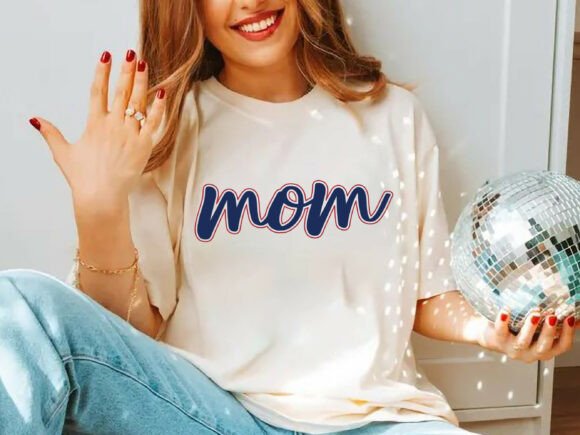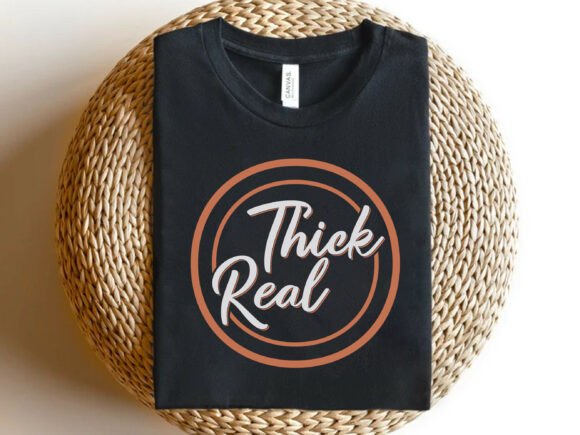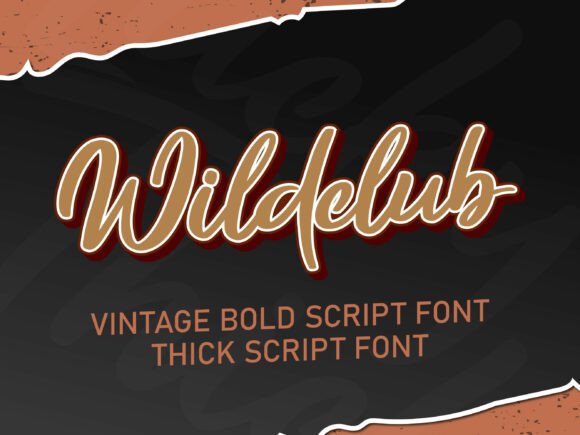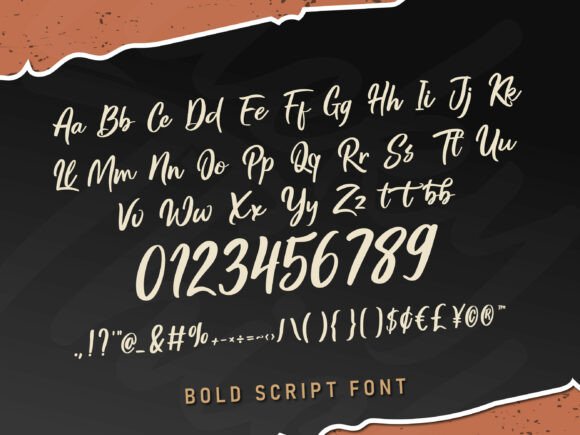
Introduction to Lucky Thick Font
Lucky Thick is a beautiful handwritten vintage script font ideal for fun and playfulness to your projects.
With both a script and display style Add a splash of color and whimsy to your designs, perfect for anything from invitations to posters.
Key Features of Lucky Thick Font
Why Choose Lucky Thick Font?